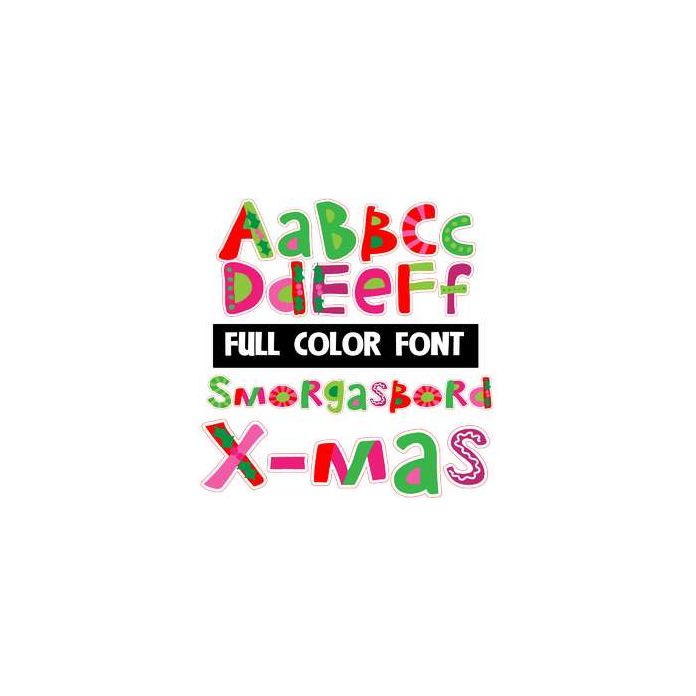
This full-color font features a smorgasbord of Christmas colors and youthful patterns. This font works best for titles, displays, posters and more. Please note color fonts will show as black in non compatible programs. This font type is compatible with Silhouette Studio.